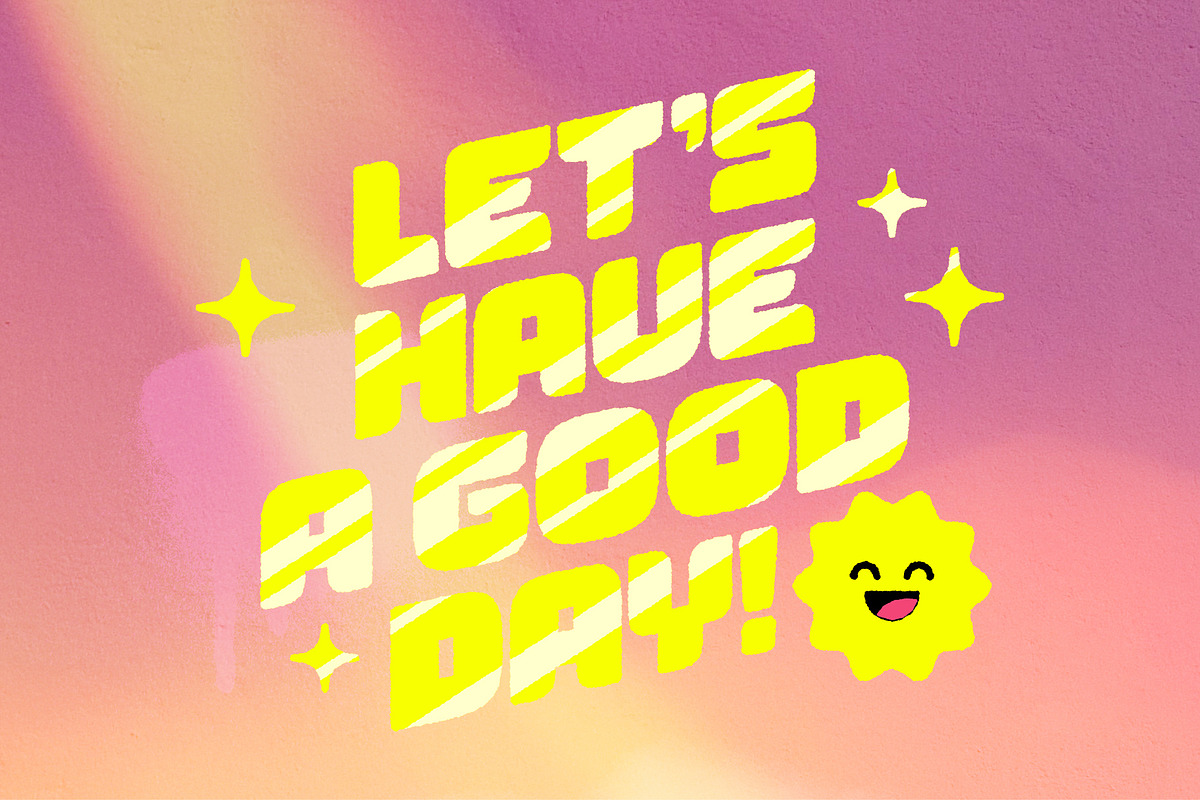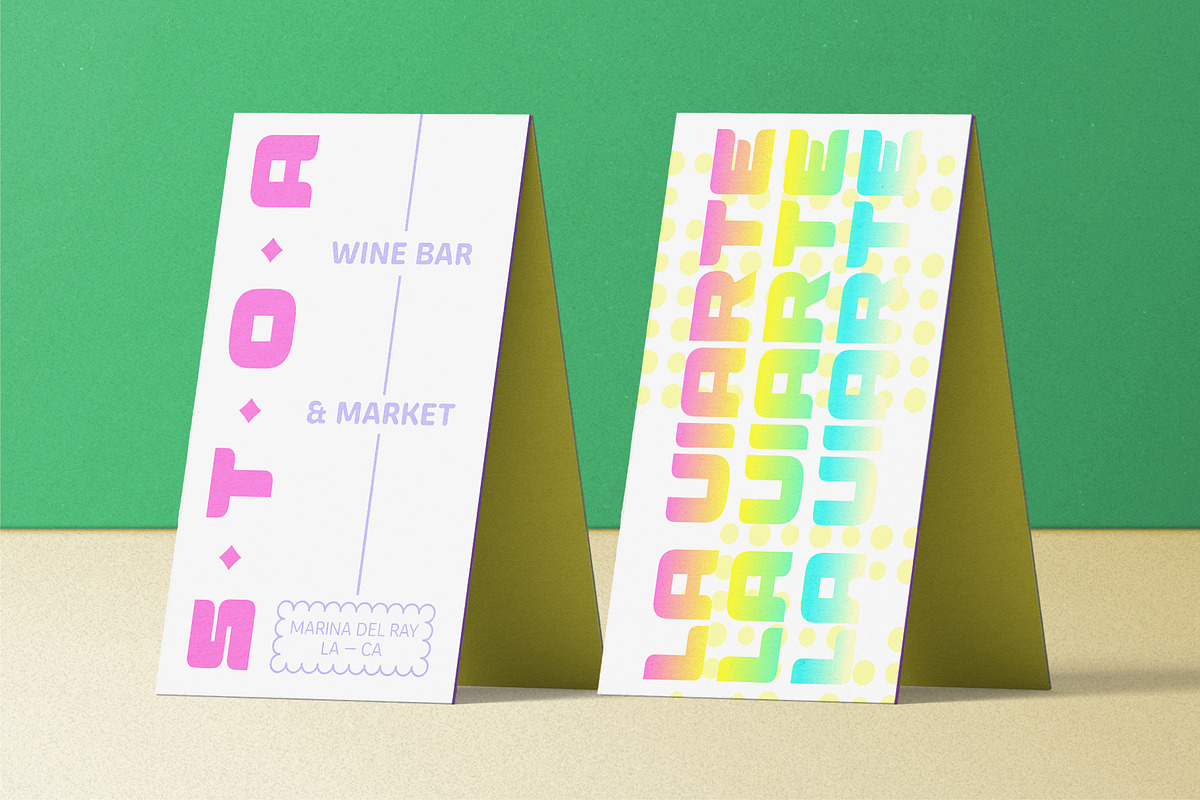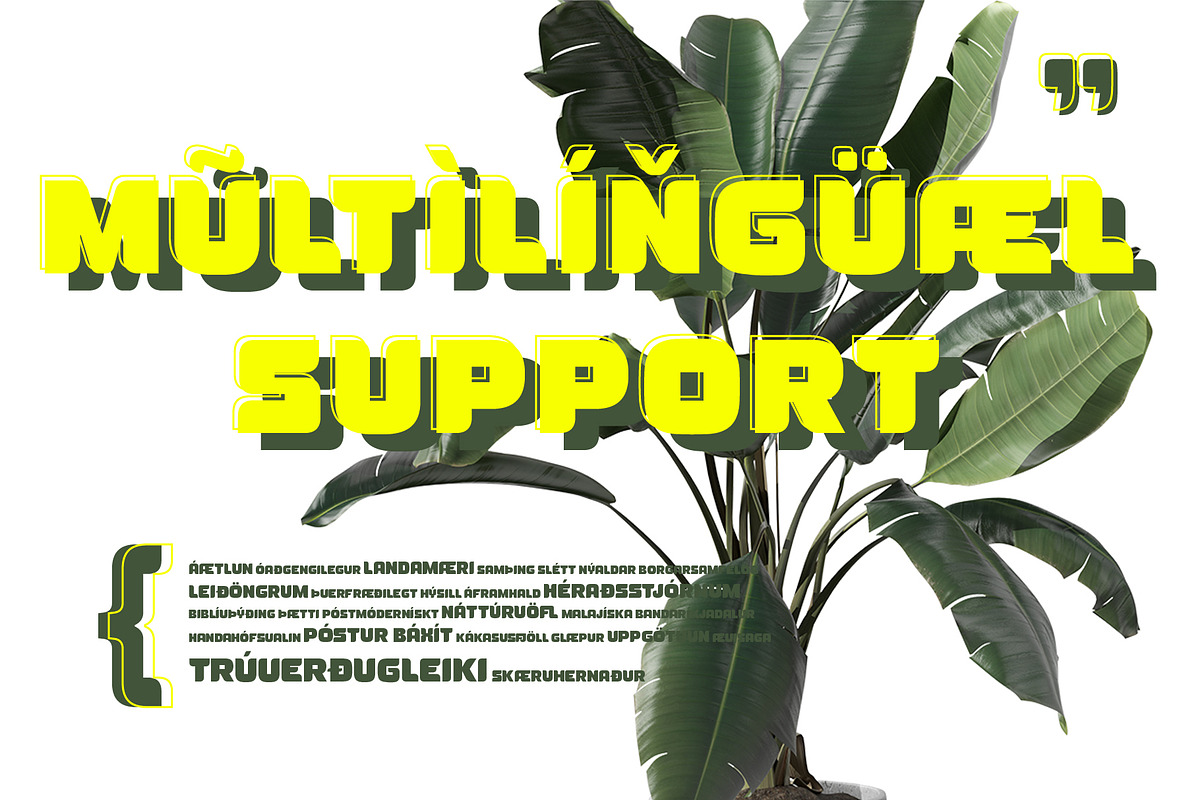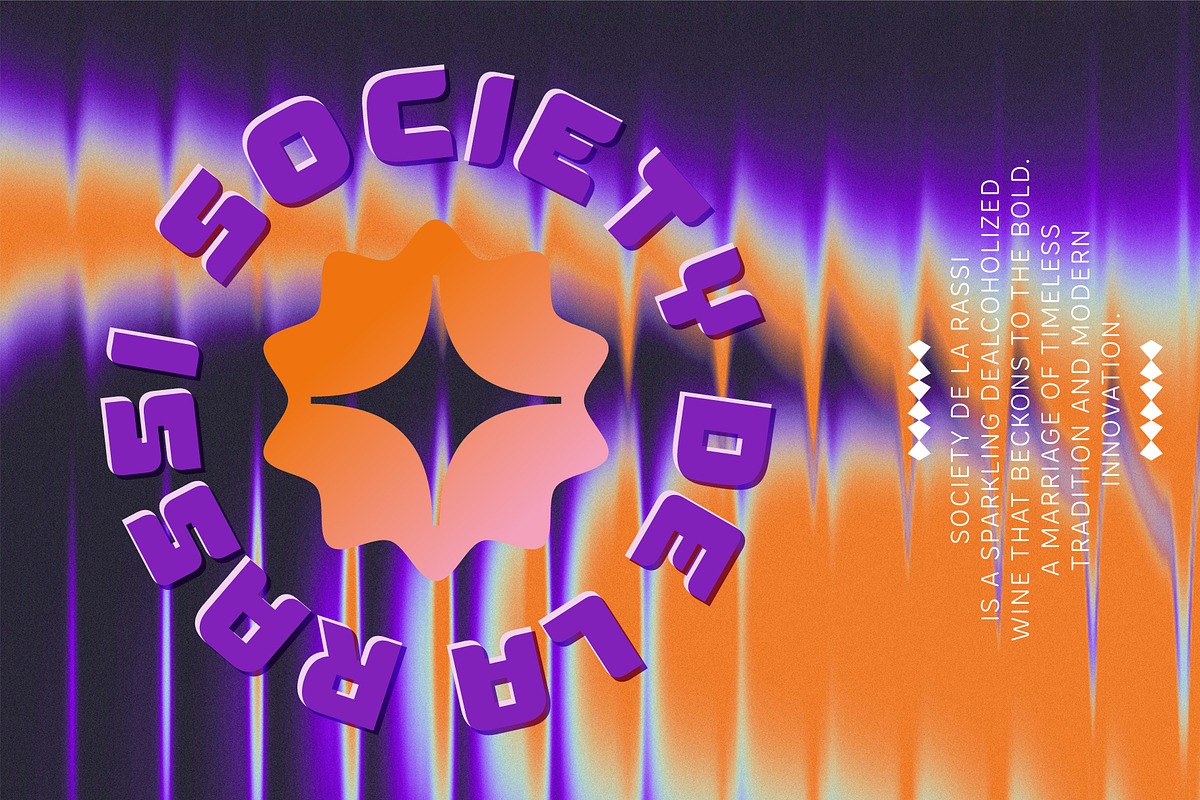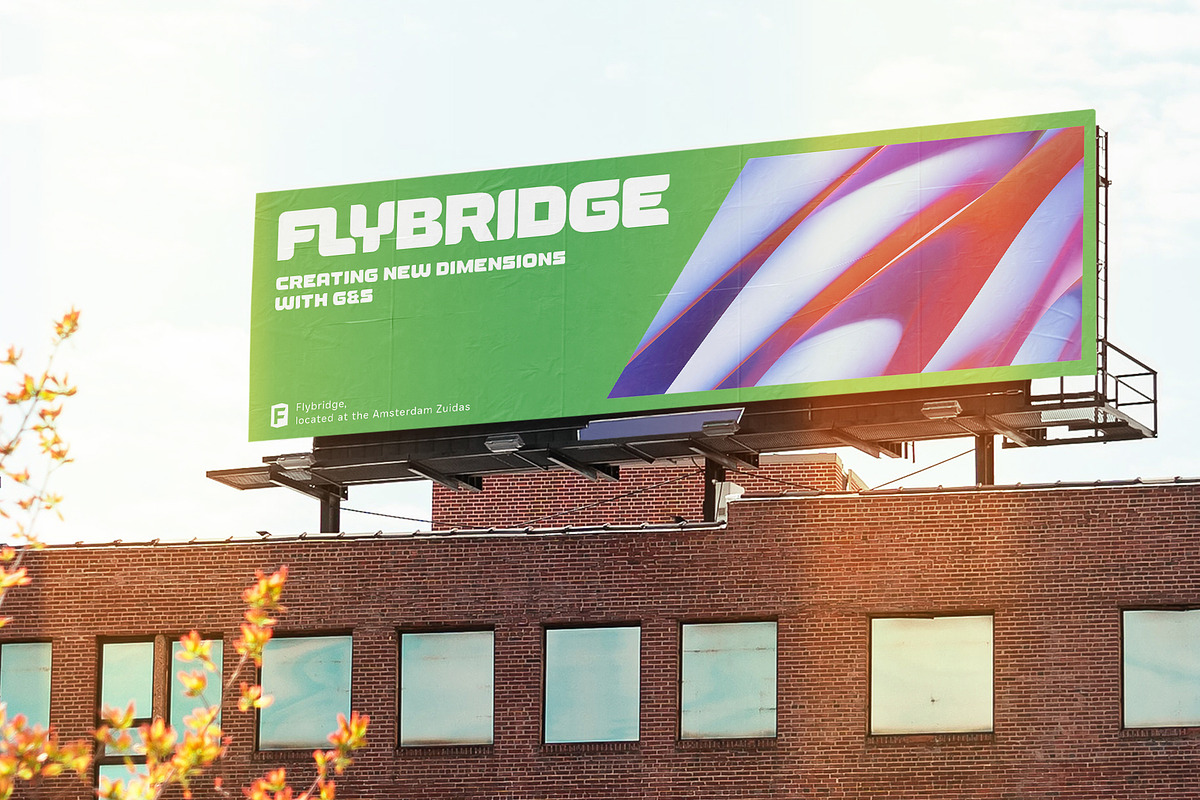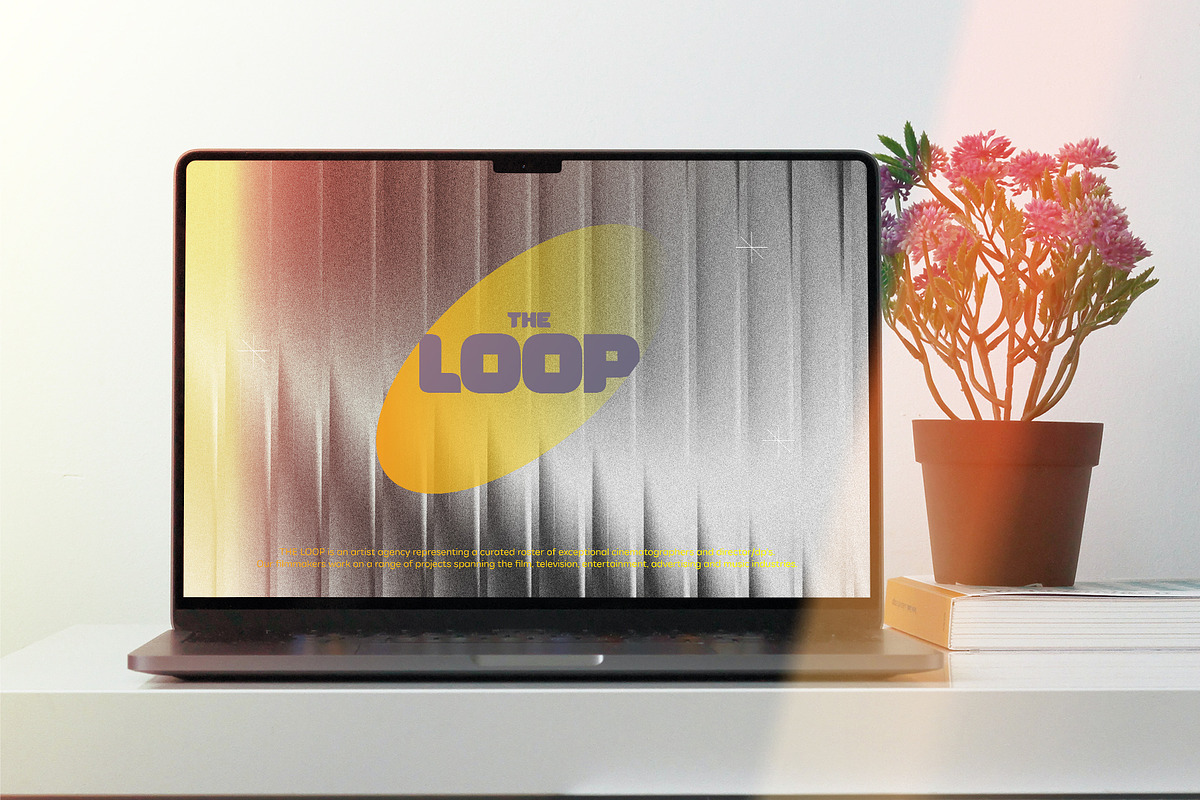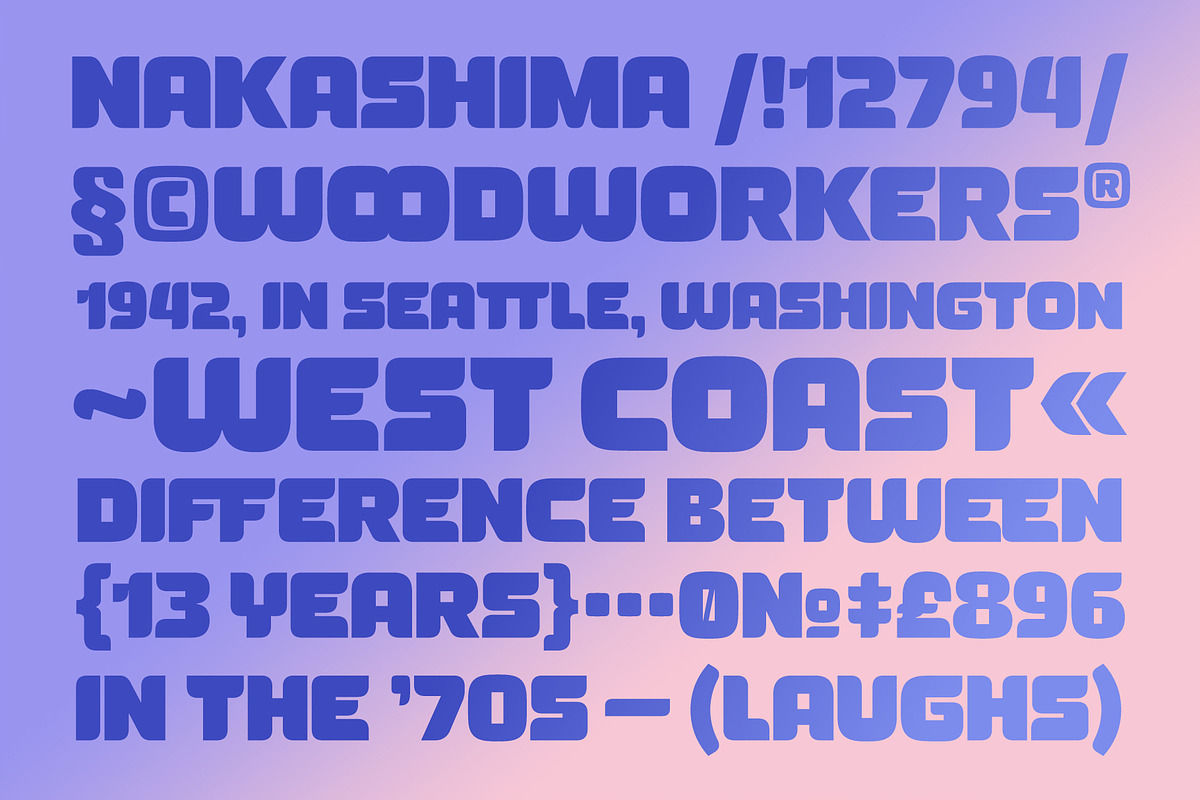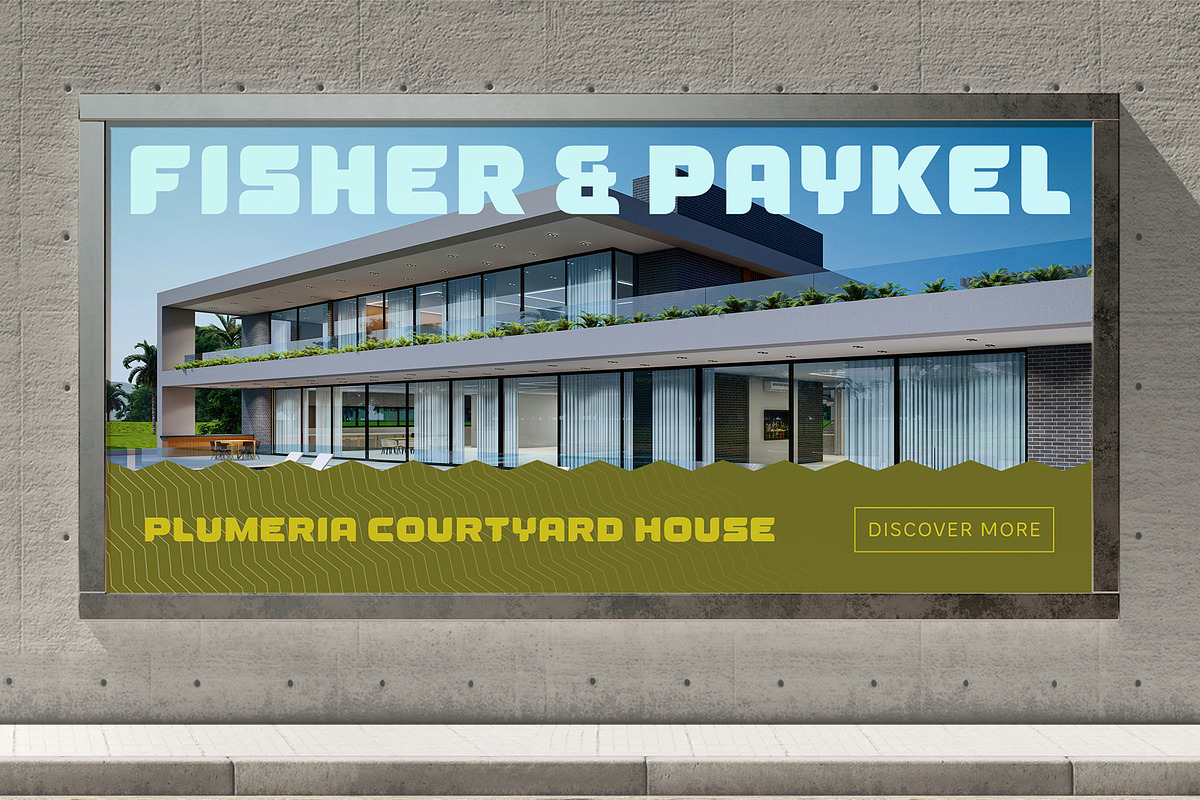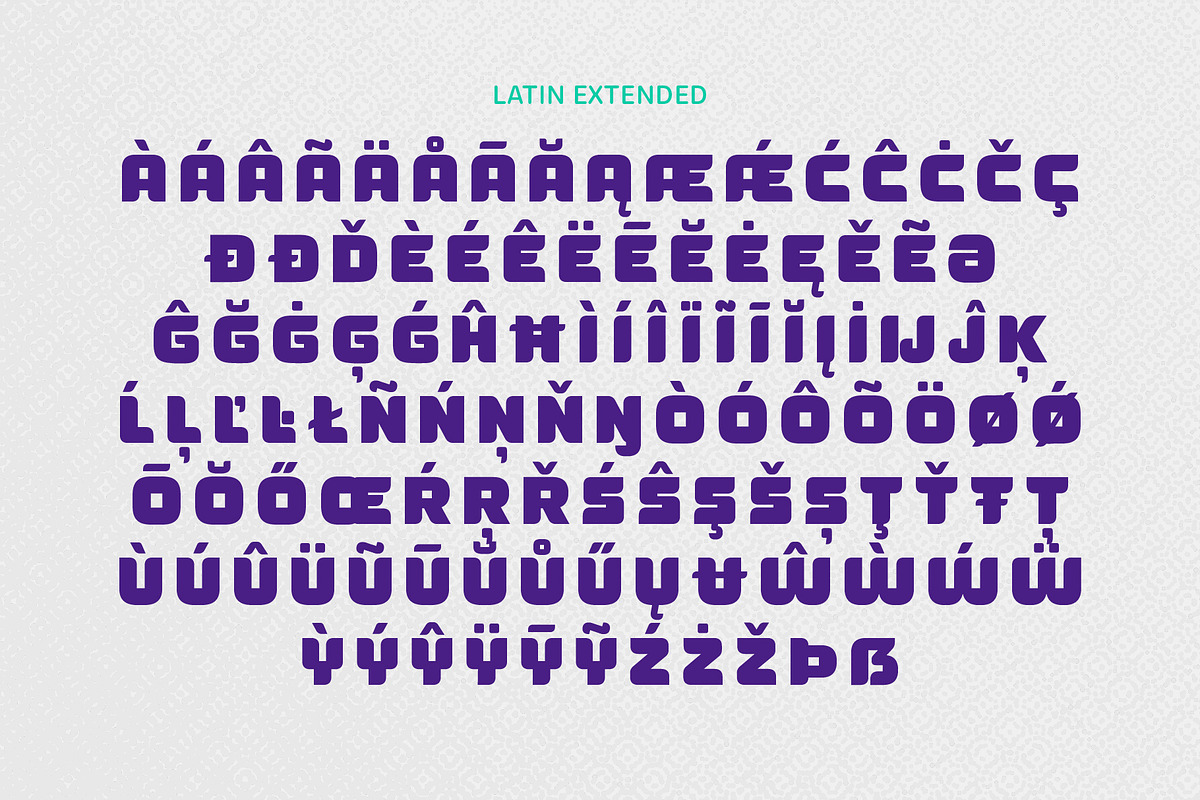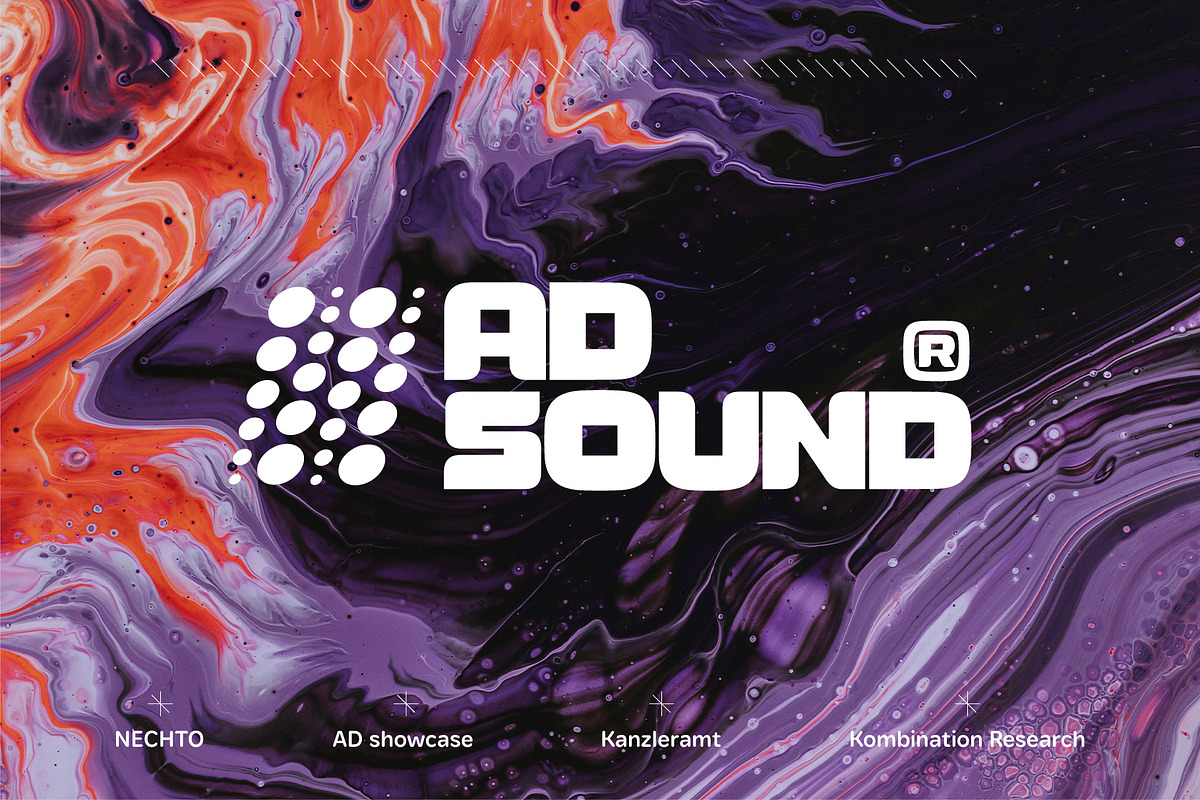
YNF Gross | Display font 2 styles
YNF Gross is a brutal uppercase font with powerful, bold letters. He is especially good at headlines and short texts. It can also be successfully used in logos. There are two styles on board: regular and wide. And there are a lot of ligatures, look at the slides of the presentation with examples!
- Standard and discretionary ligatures
- Stylistic sets
- Opentype features and localized forms